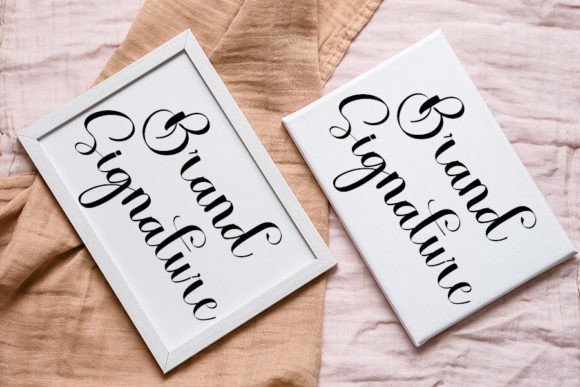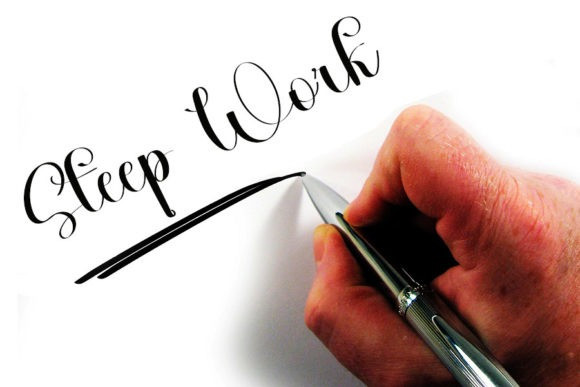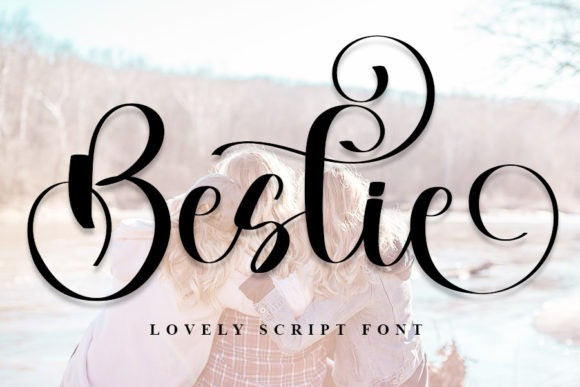
Bestie Font
Bestie Font is a beautiful and refined script font. It has a classy, elegant and modern look that can be used for logos, branding, invitations, stationery, wedding designs, social media posts, and much more!